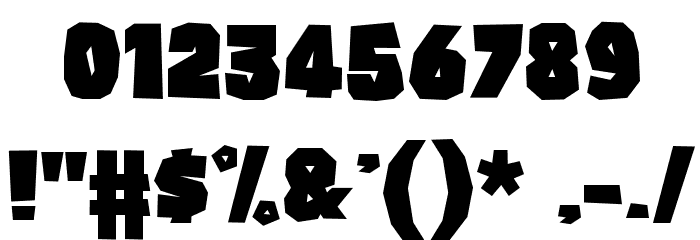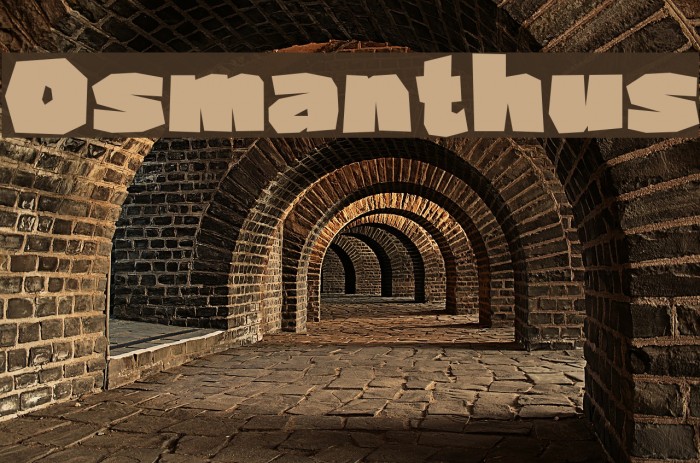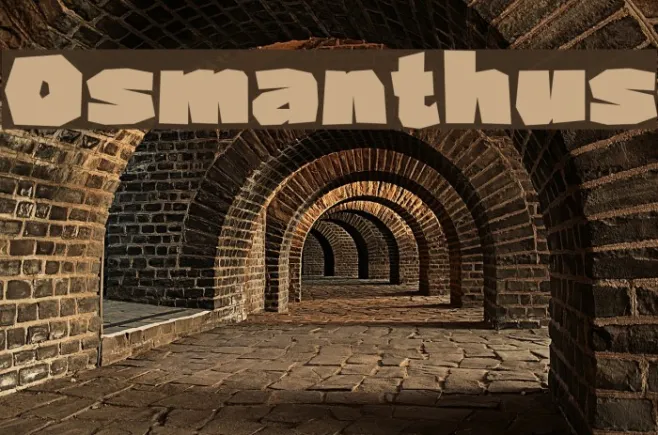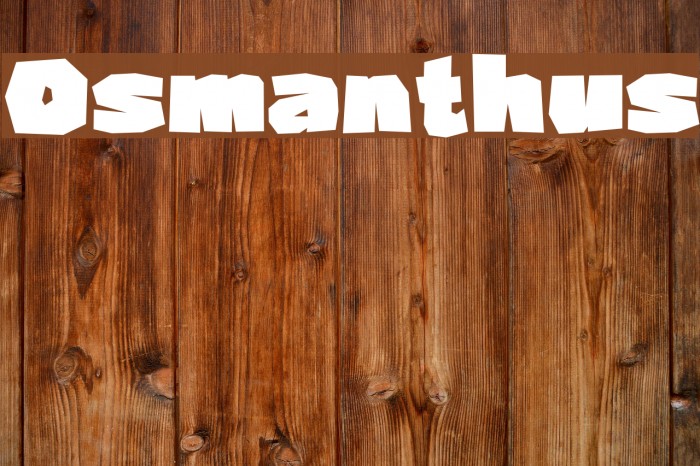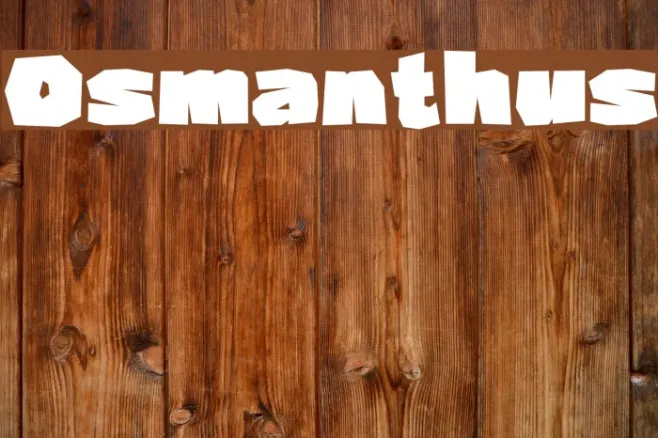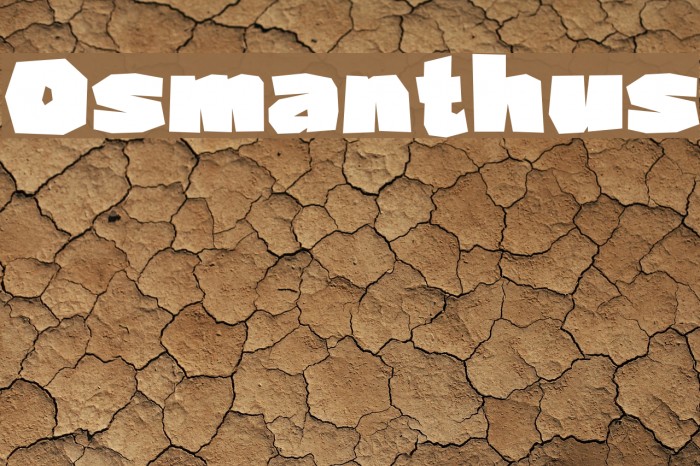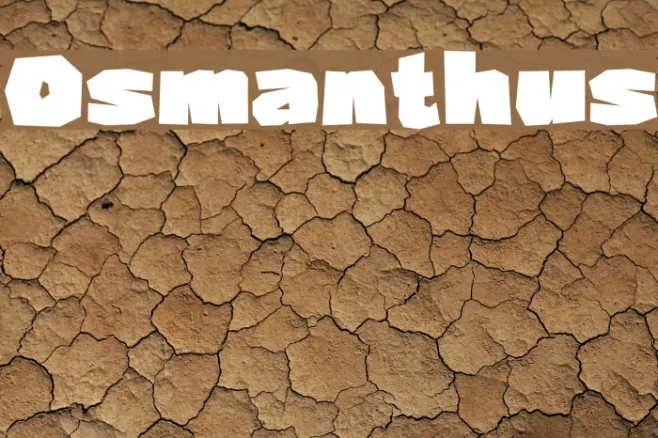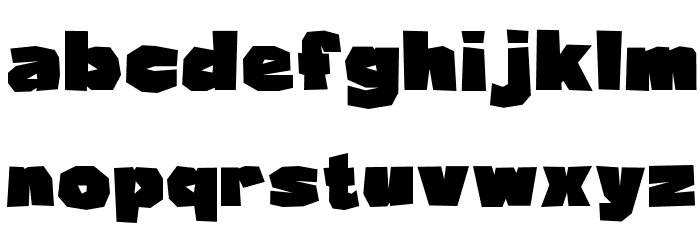
Osmanthus Font
Osmanthus Description
This font features a bold and dynamic style with a distinctly angular and geometric design. The characters are heavily stylized, with sharp edges and irregular shapes that give it a unique, almost hand-cut appearance. The uppercase and lowercase letters maintain a consistent weight, contributing to a cohesive look. The numerals and special characters follow the same design principles, ensuring uniformity across all glyphs. This font's boldness and distinctiveness make it stand out, ideal for projects that require a strong visual impact.
| Proposed Projects | Ideal for posters, logos, headlines, and any design requiring a bold, eye-catching font. |